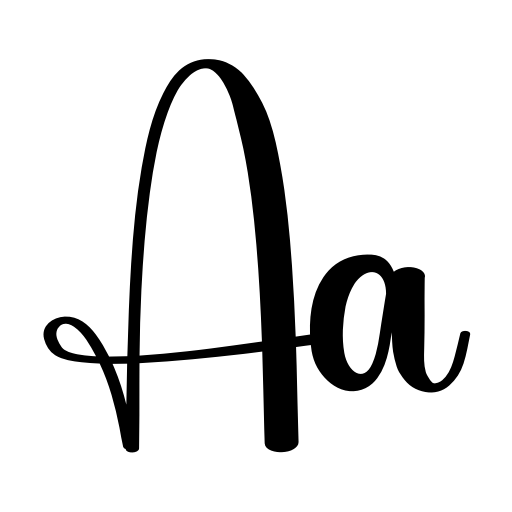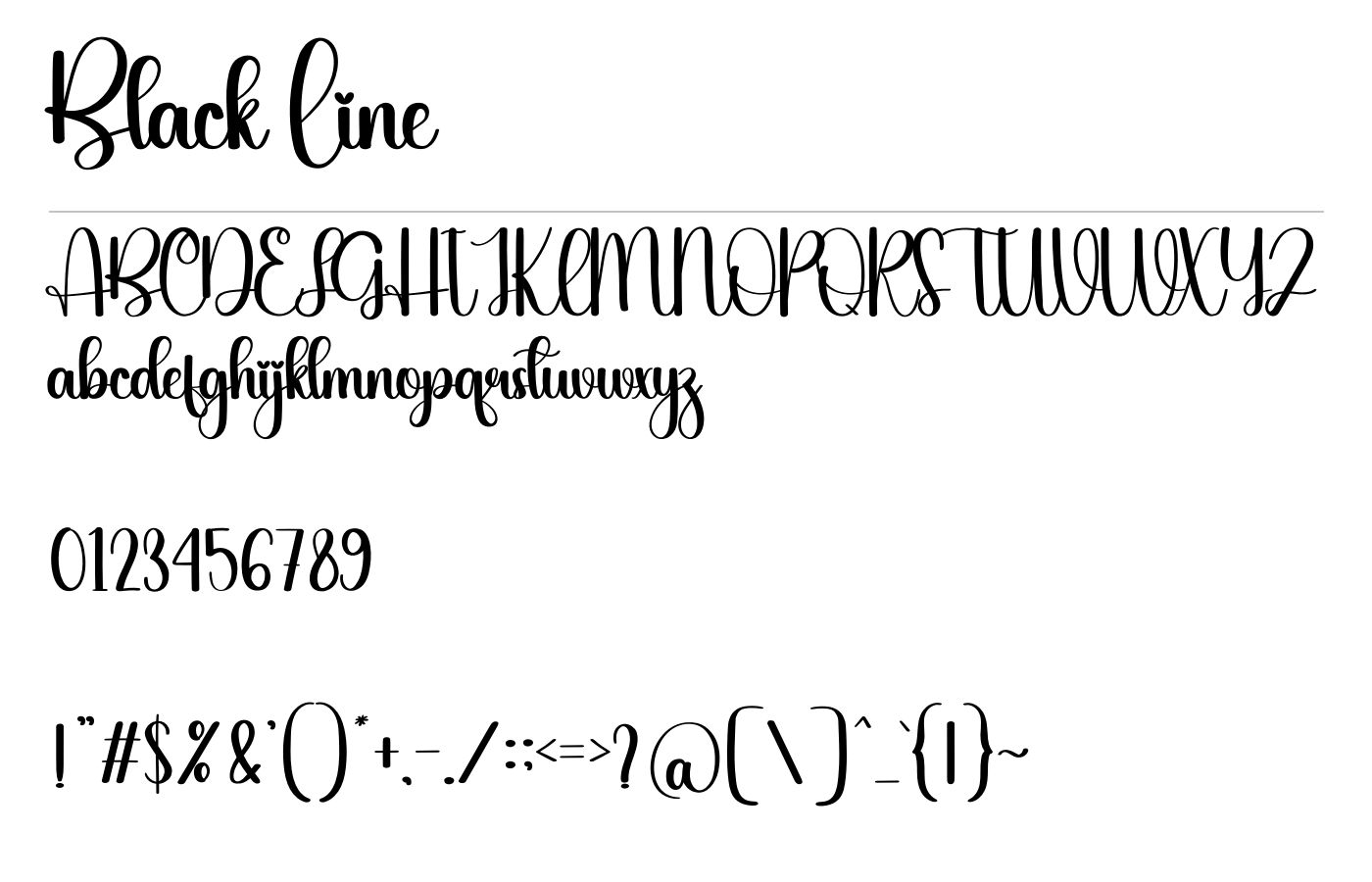
Black Line is a playful and elegant script font featuring thin, flowing strokes with charming loops and swashes that add a handwritten, whimsical feel. Its light weight and tall, narrow letterforms make it excellent for creative projects such as invitations, greeting cards, and branding that seeks a romantic and friendly touch. This font works well in display and headline use, where its unique character shapes can shine without compromising readability.
Black Line Font
About Black Line Font